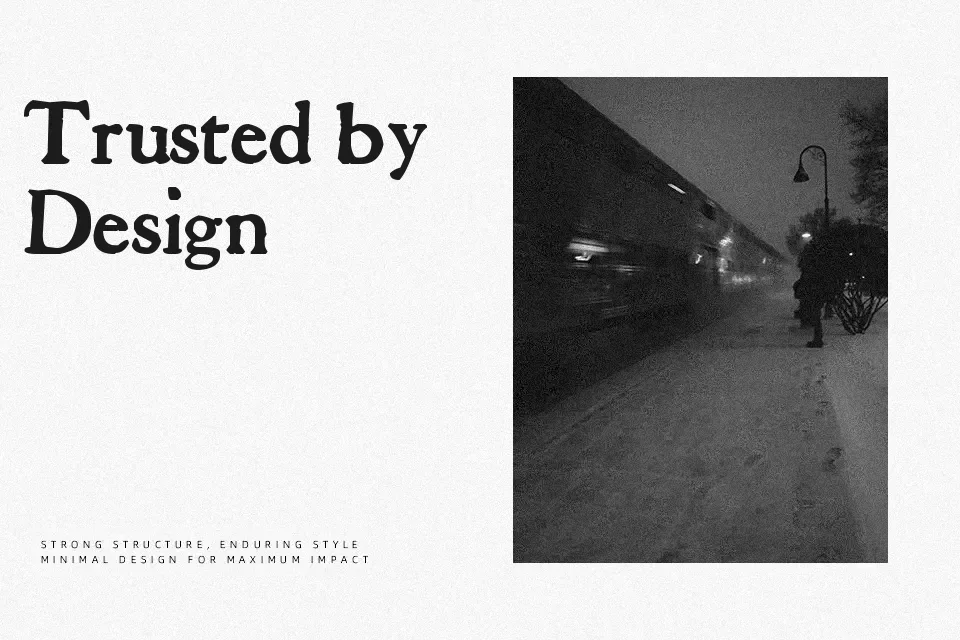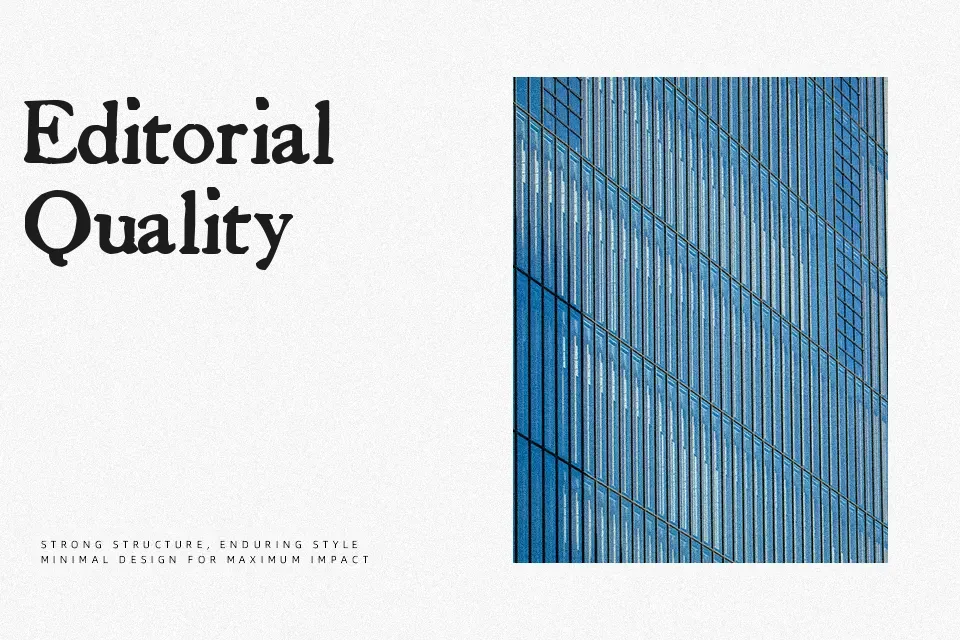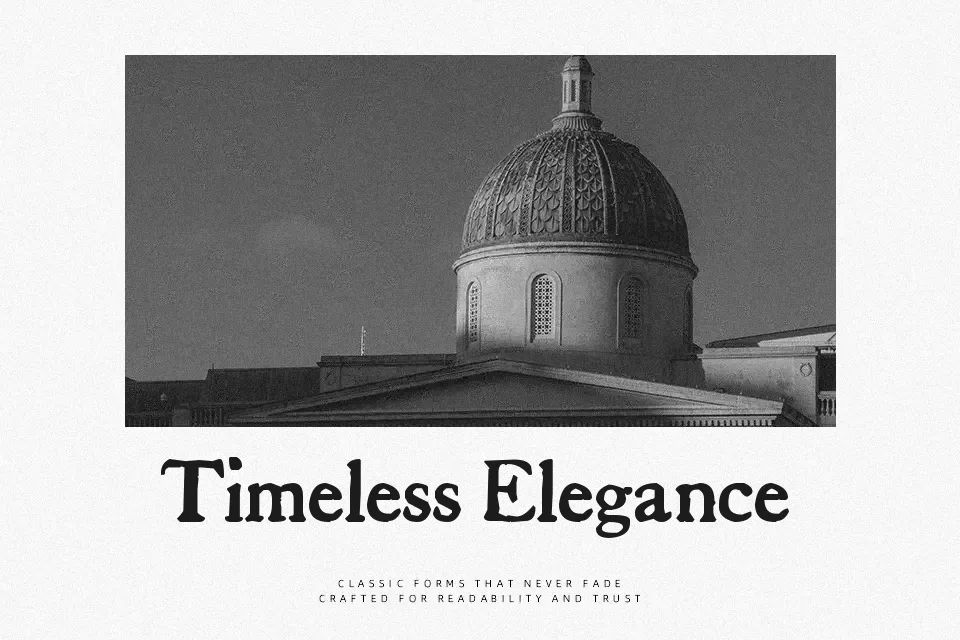
Tuer’s Cardboard Font
Featuring rugged contours and traditional serif proportions, Tuer’s Cardboard Font recreates the imperfect texture of nineteenth-century printed cardboard. The letterforms display uneven stroke weights, pitted terminals, and slightly rustic serifs that evoke genuine historical printmaking. Spacing between characters remains moderately open, which helps individual shapes stay recognizable across display headings and poster titles. In practical evaluation, the coarse erosion gives titles substantial character without requiring artificial distressing filters. However, the heavy degradation compromises legibility at reduced text scales, making the typeface poorly suited for dense paragraphs or delicate user interface labels. The design functions most effectively in large formats.
Best For: vintage book covers, historical display headlines, craft product packaging
Not Ideal For: continuous paragraph reading, small user interface text, formal legal documentation
Perfect for branding, headline, and packaging, with a classic and decorative style.